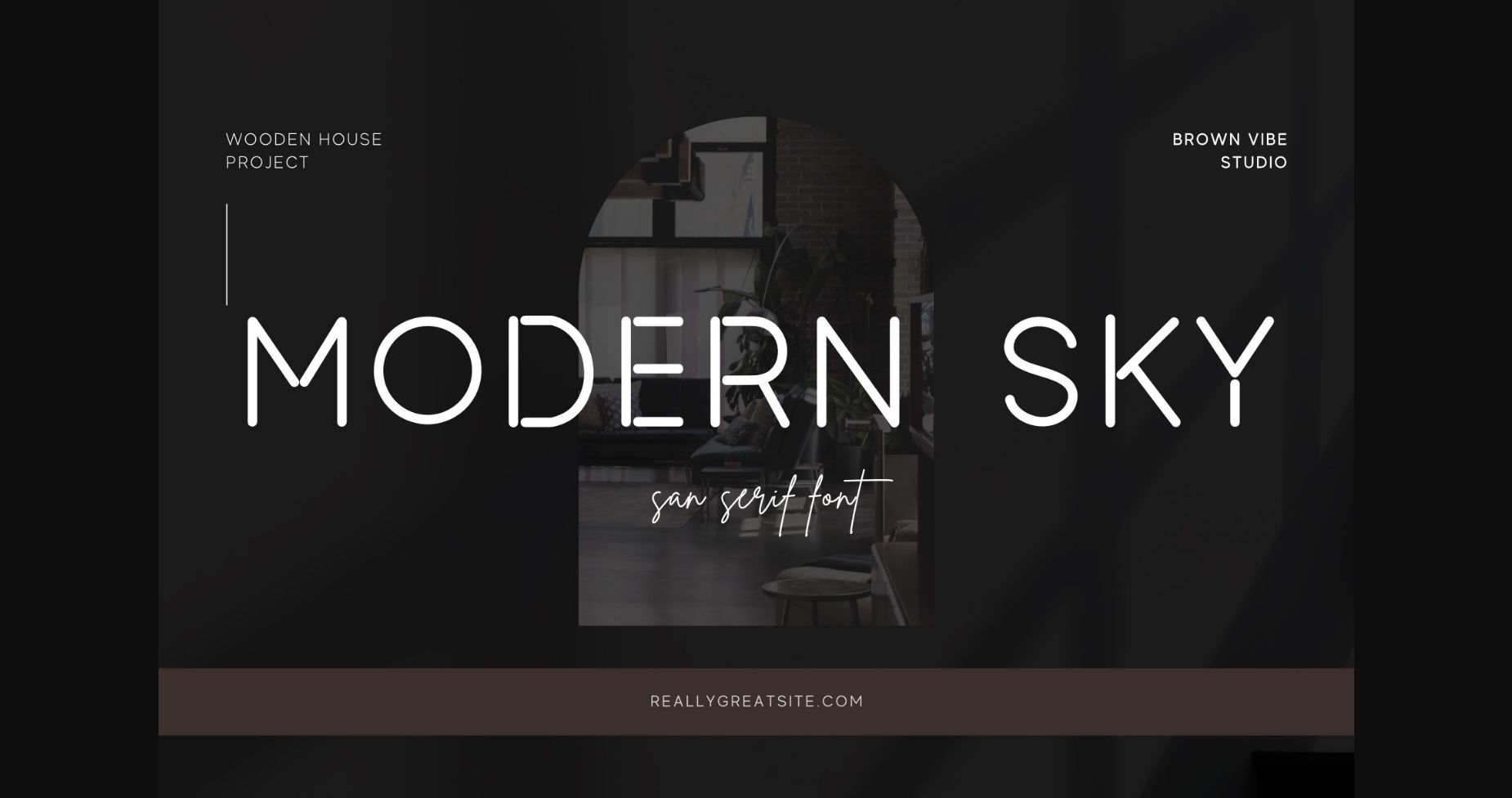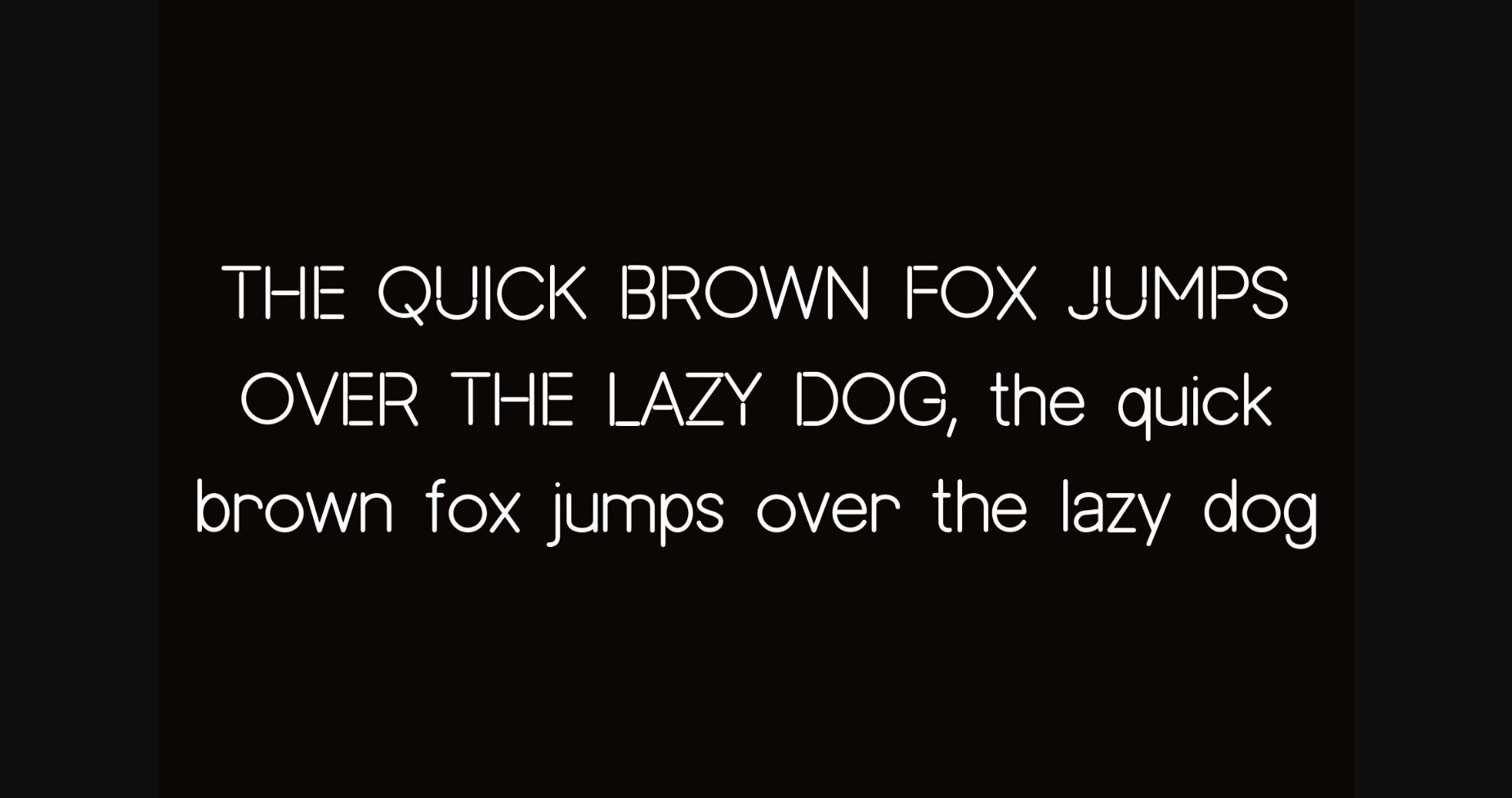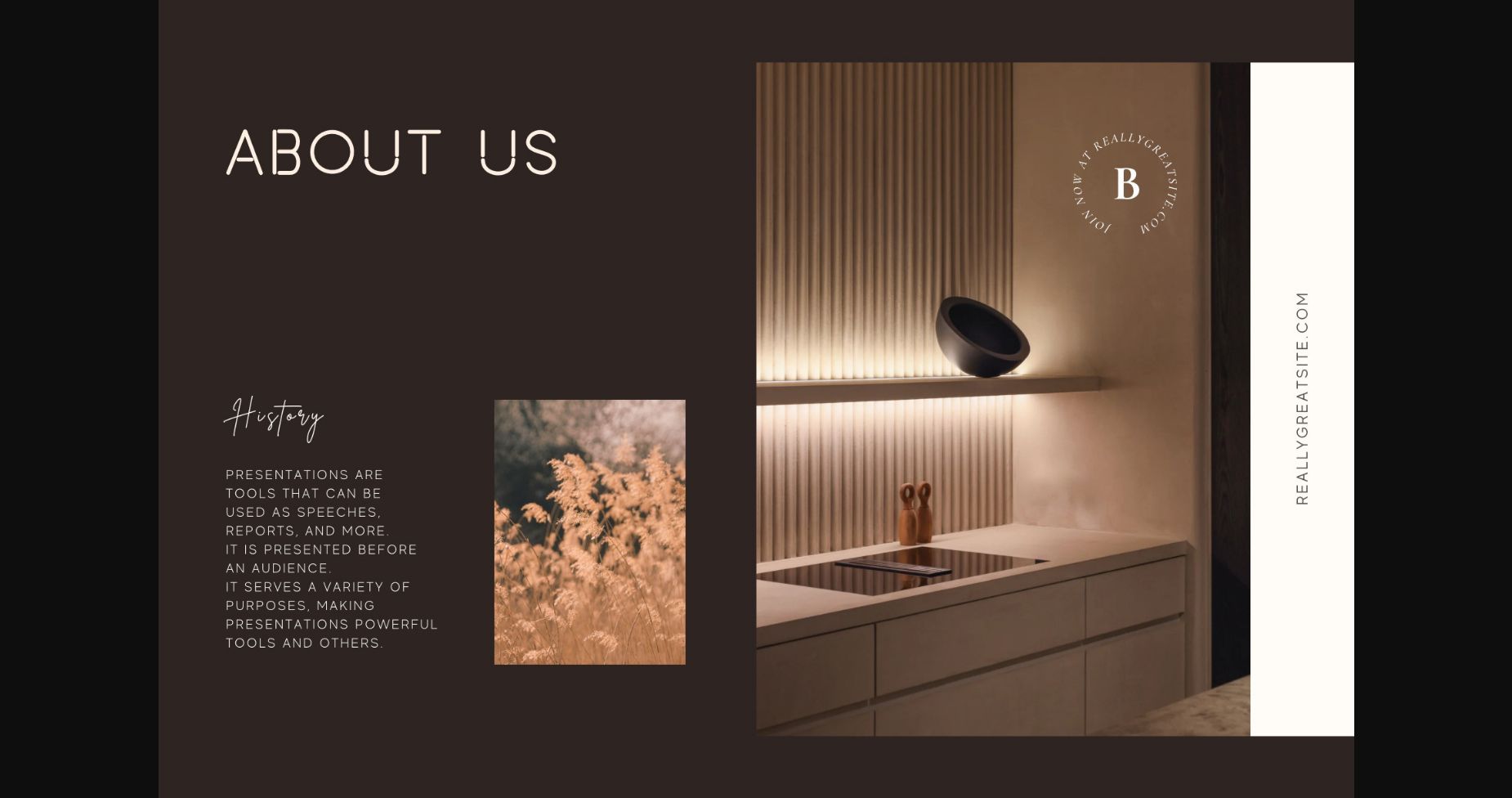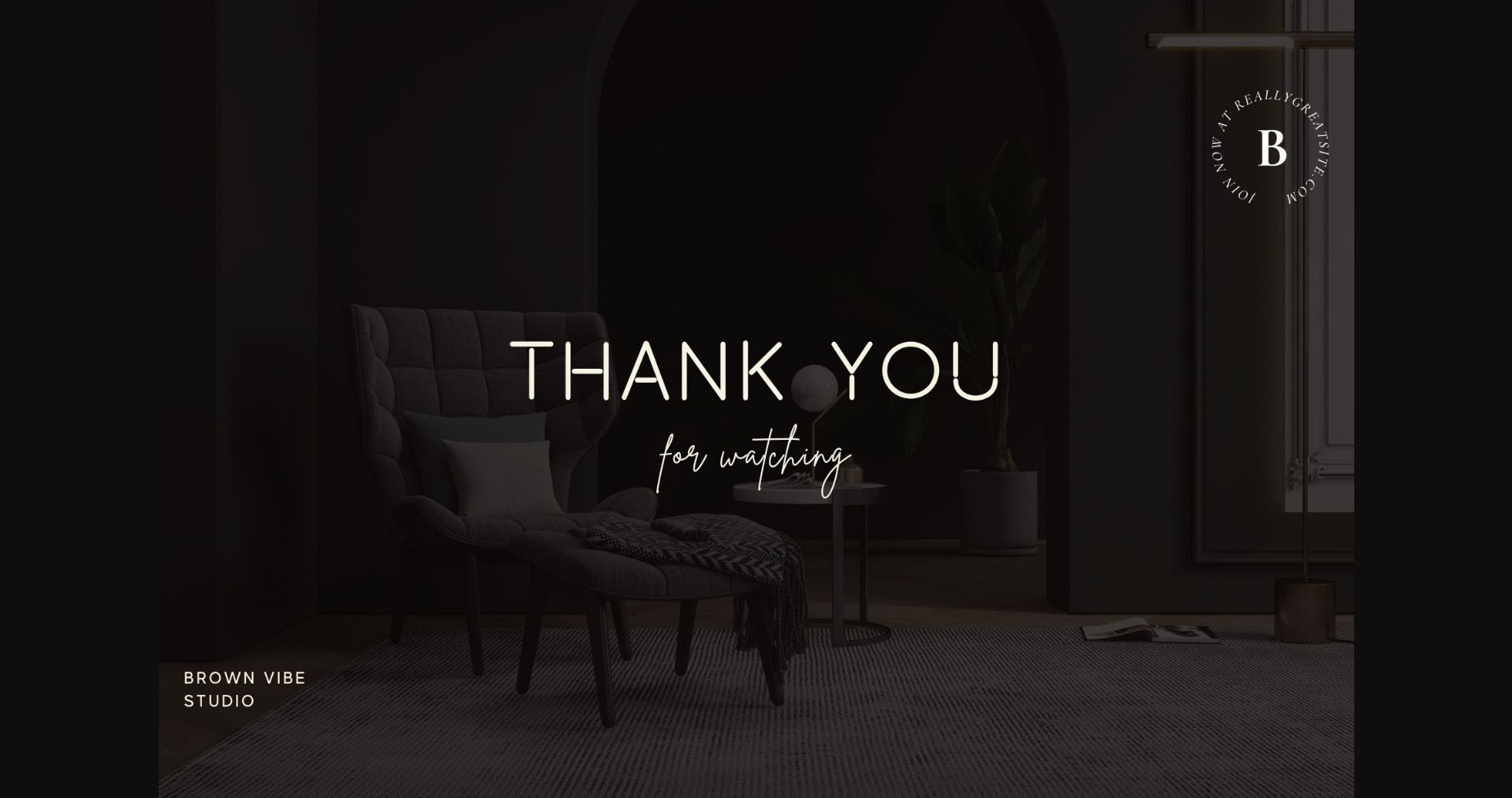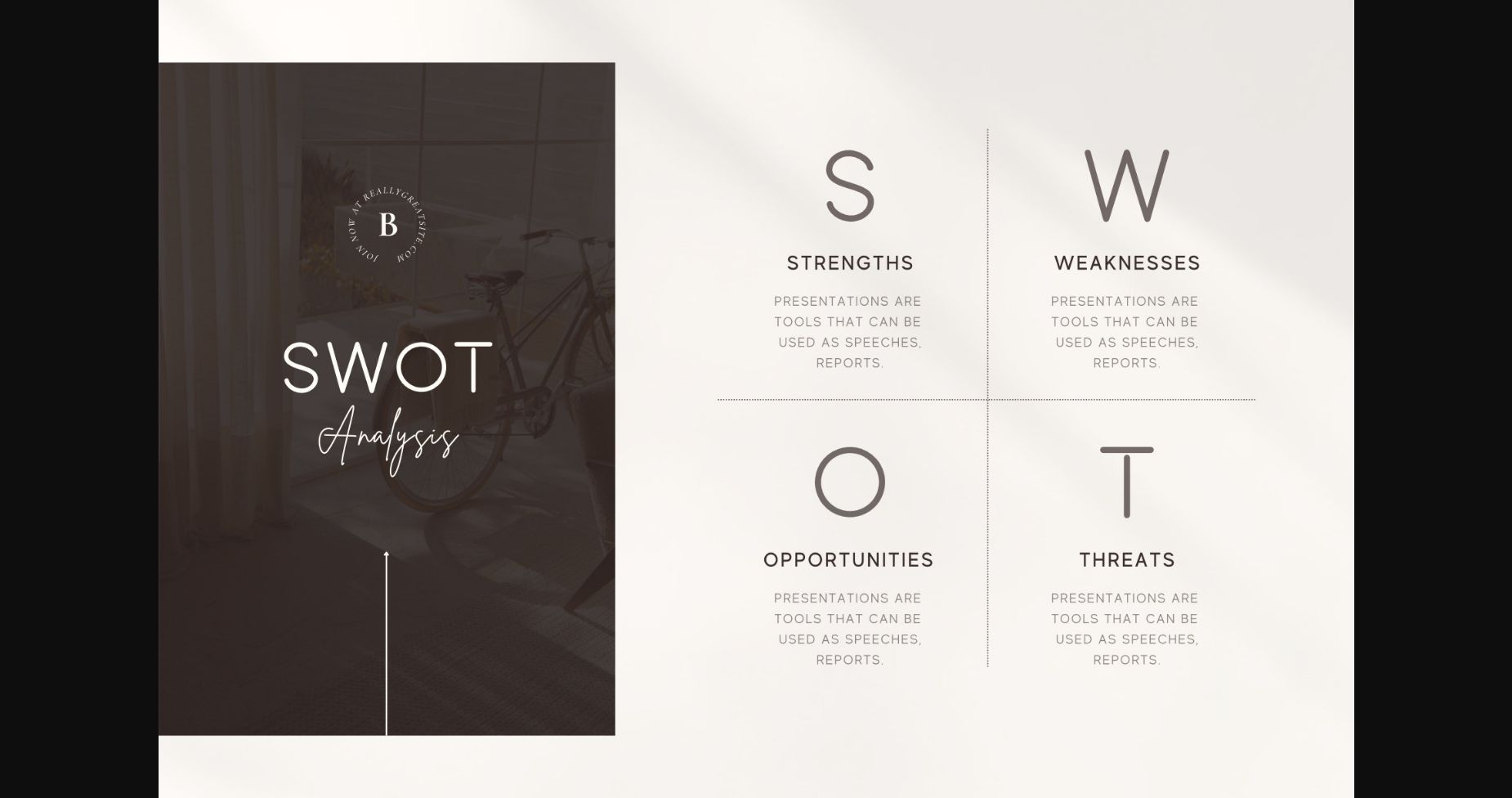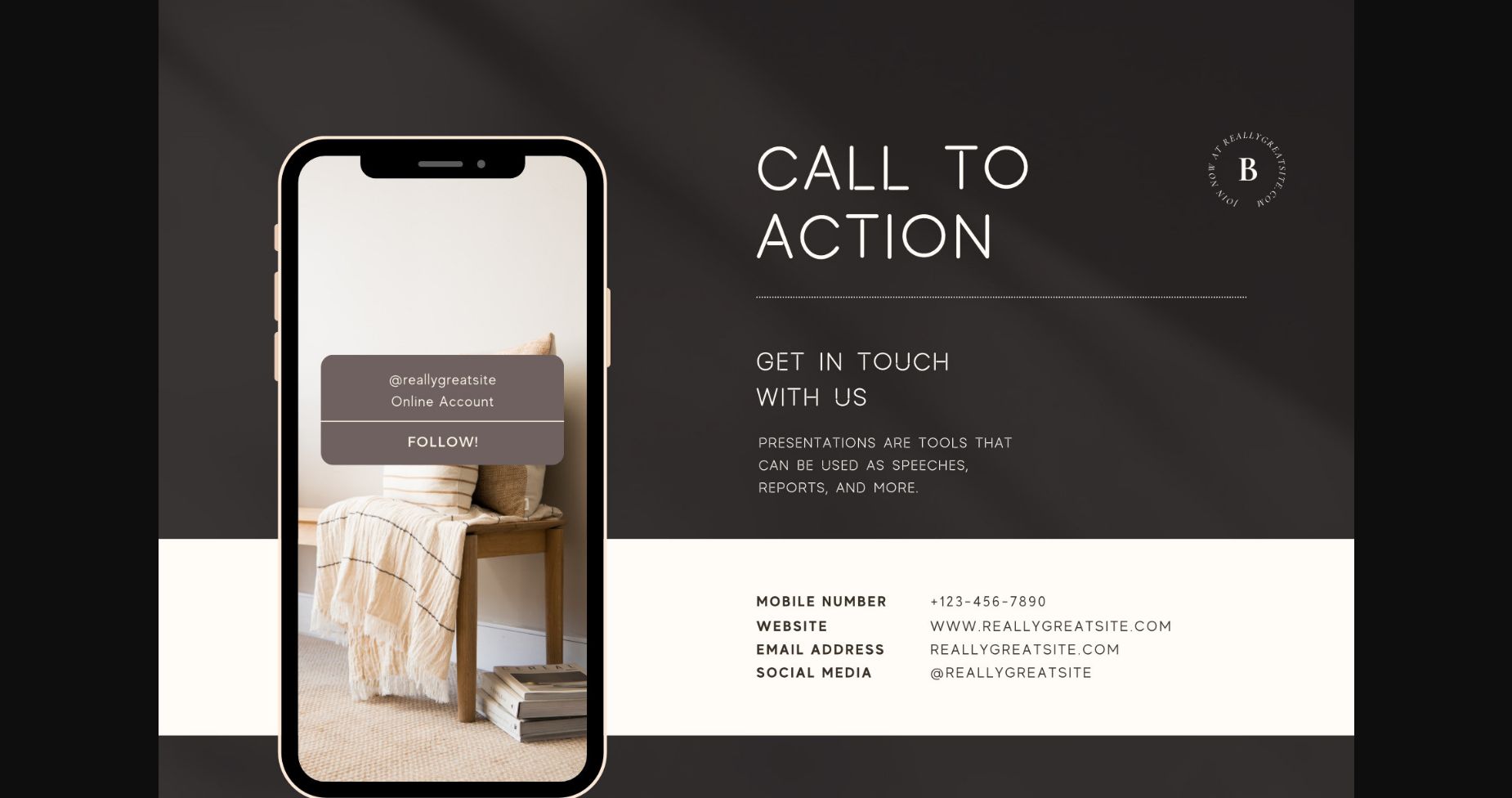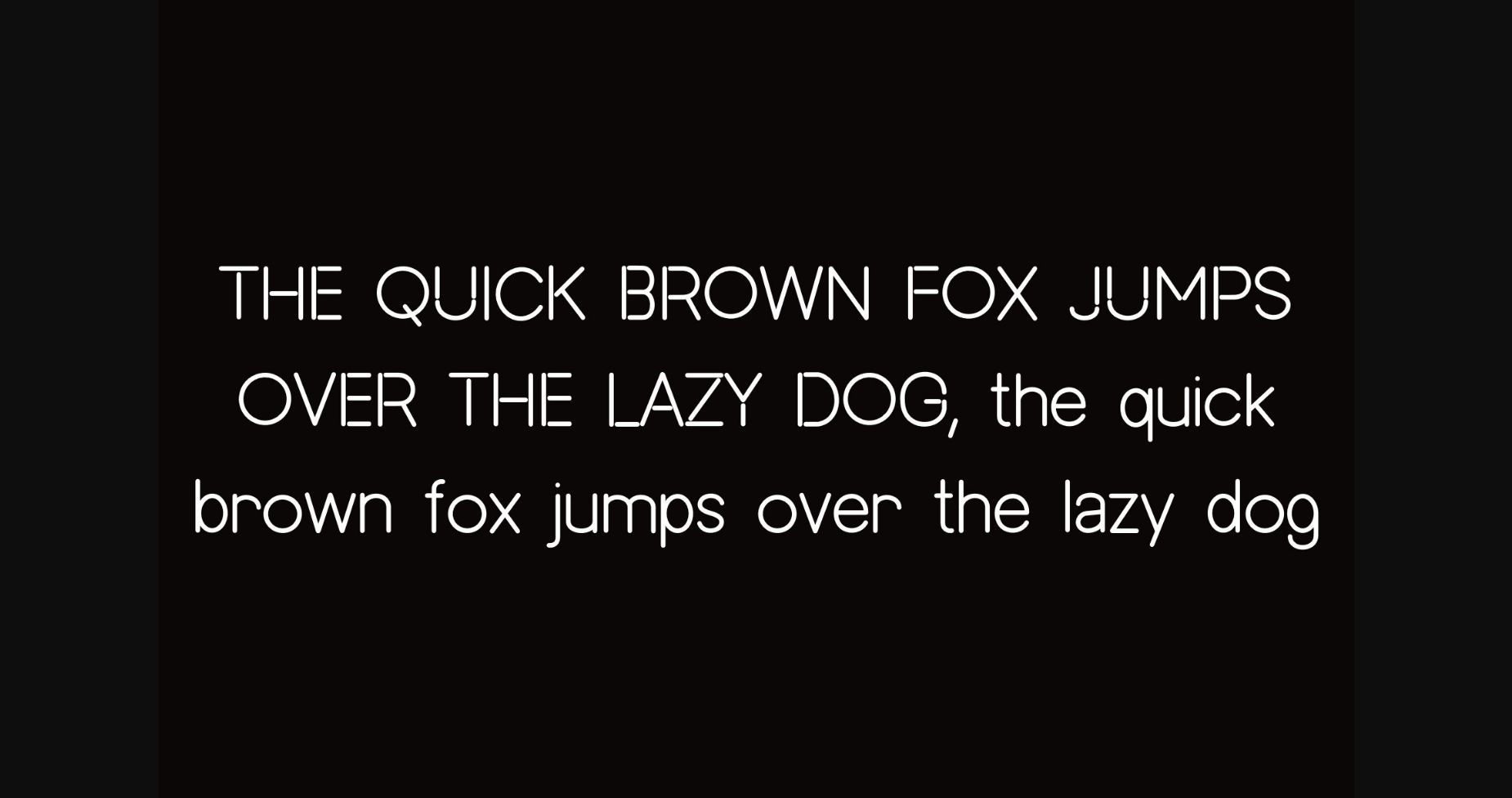
Modern Sky Font
About Modern Sky Font
Modern sky is a cute, handwritten font. This playful sans-serif will look so good on your invites, cards, logos, and any other fun projects you are working on.